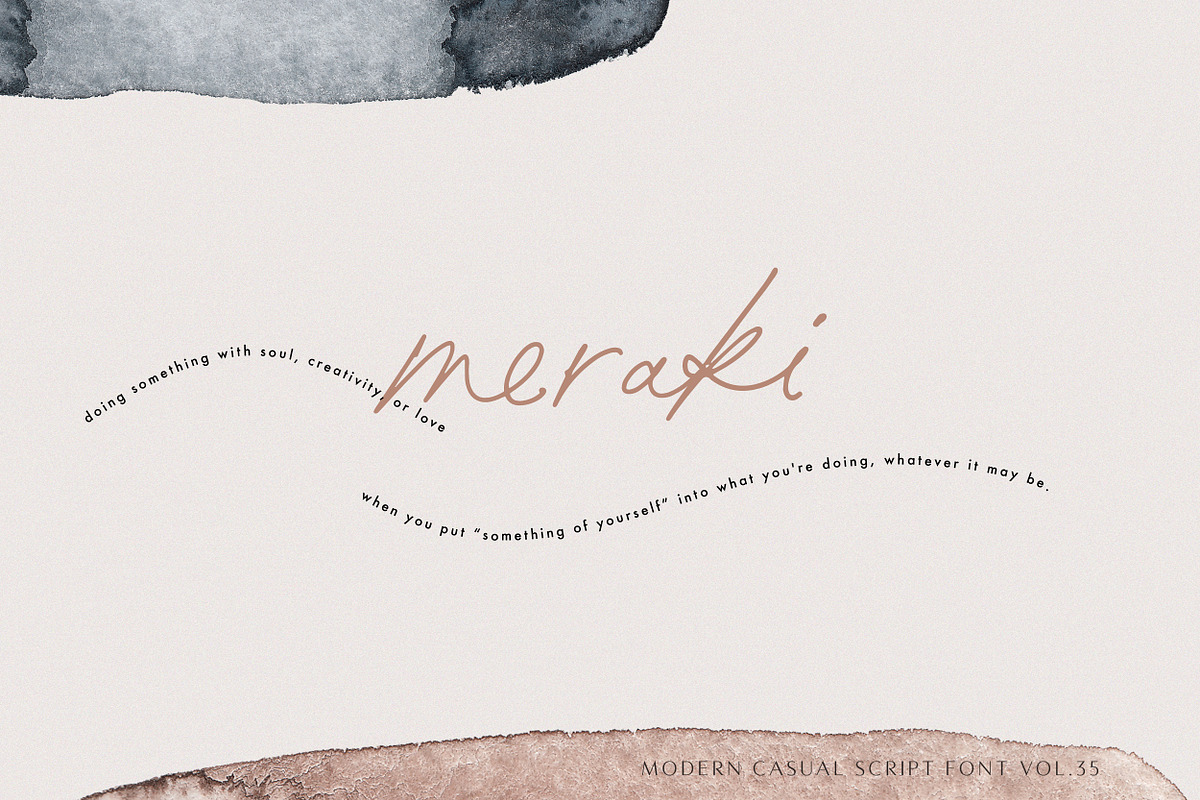
Printed Moments is a modern casual script font with a modern flair. It includes full set of uppercase and lowercase letters, multilingual symbols, numerals, punctuation and 134 ligatures.
The font has smooth ball pen texture. It has beginning and ending lowercase ligatures. It is perfect for your next creative projects such as watermarks on photography, quotes, album covers, logos, business cards, and many other design projects.